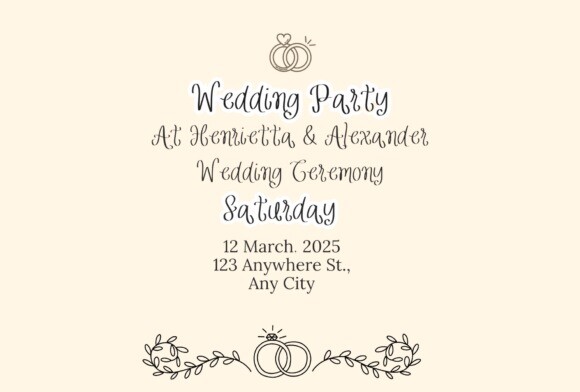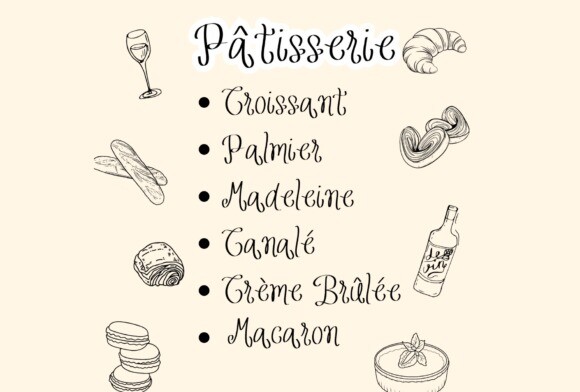
Bellissima Font
Bellissima Font, a handwritten wedding font that captures the essence of elegance and romance. Perfect for invitations, save-the-dates, and all your wedding stationery needs, Bellissima’s graceful curves and delicate strokes add a touch of sophistication to any event. Let your special day shine with the timeless beauty of Bellissima.